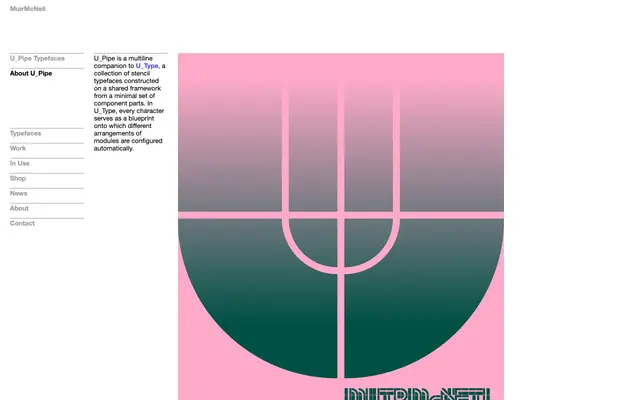
A modular multiline stencil typeface built as a companion to U_Type, assembling characters automatically from a minimal set of shared component parts.
U_Pipe extends the U_Type system into multiline territory, using the same shared construction framework where each character acts as a blueprint for automatic module arrangement. The result is a highly systematic display face whose forms are determined by rule rather than drawn conventionally. It suits work where the logic of construction is itself part of the visual statement.
U_Pipe is a modular, multiline stencil display typeface built from a minimal set of component parts on a shared construction framework, placing it firmly in the display/experimental category.